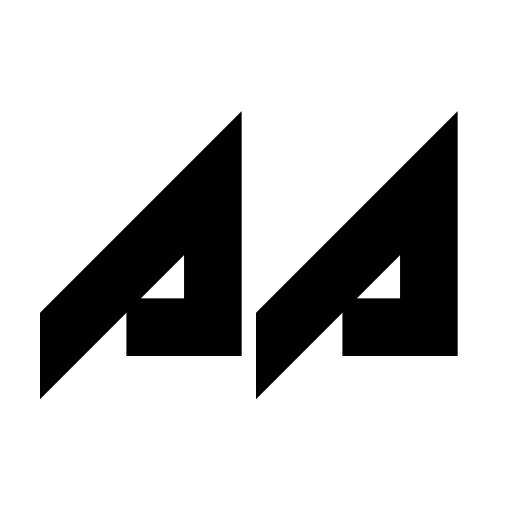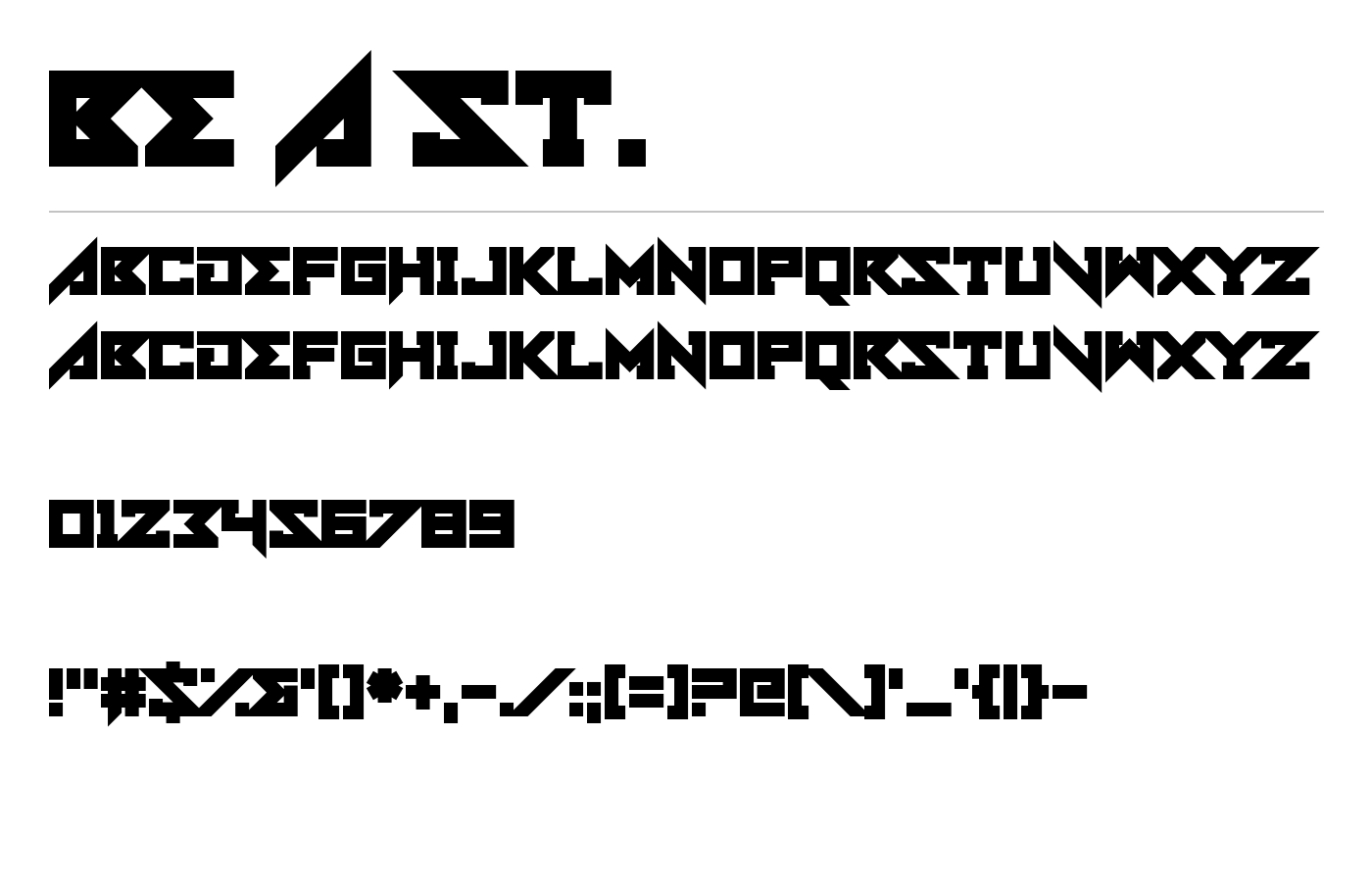
Be A St. is a bold, geometric display font with sharp angles and strong lines, giving it a futuristic and edgy vibe. Its heavy weight and condensed style make it ideal for striking headlines and logos that demand attention. This font works best in modern branding, posters, and creative projects where a dynamic and powerful statement is desired.
Be A St. Font
About Be A St. Font
| Font family | Be A St. Font |
| Designer | Allison James |
| Trademark | Be A St. by Chequered Ink. |